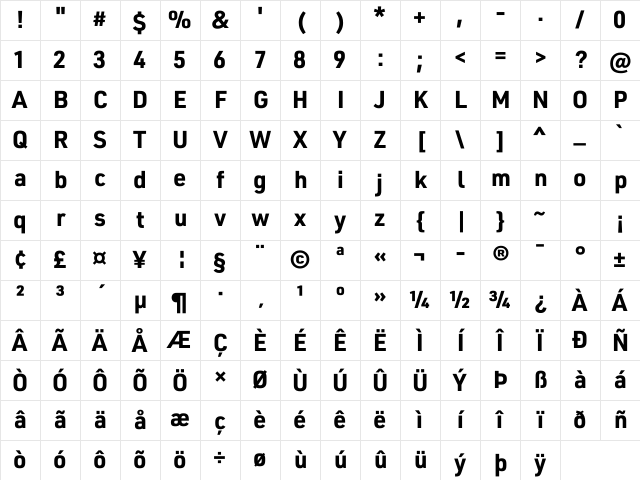
URW DIN Arabic is a composed and adaptable typeface that performs quietly and consistently across a wide range of design contexts. Its bold stroke weight gives it real presence on the page.